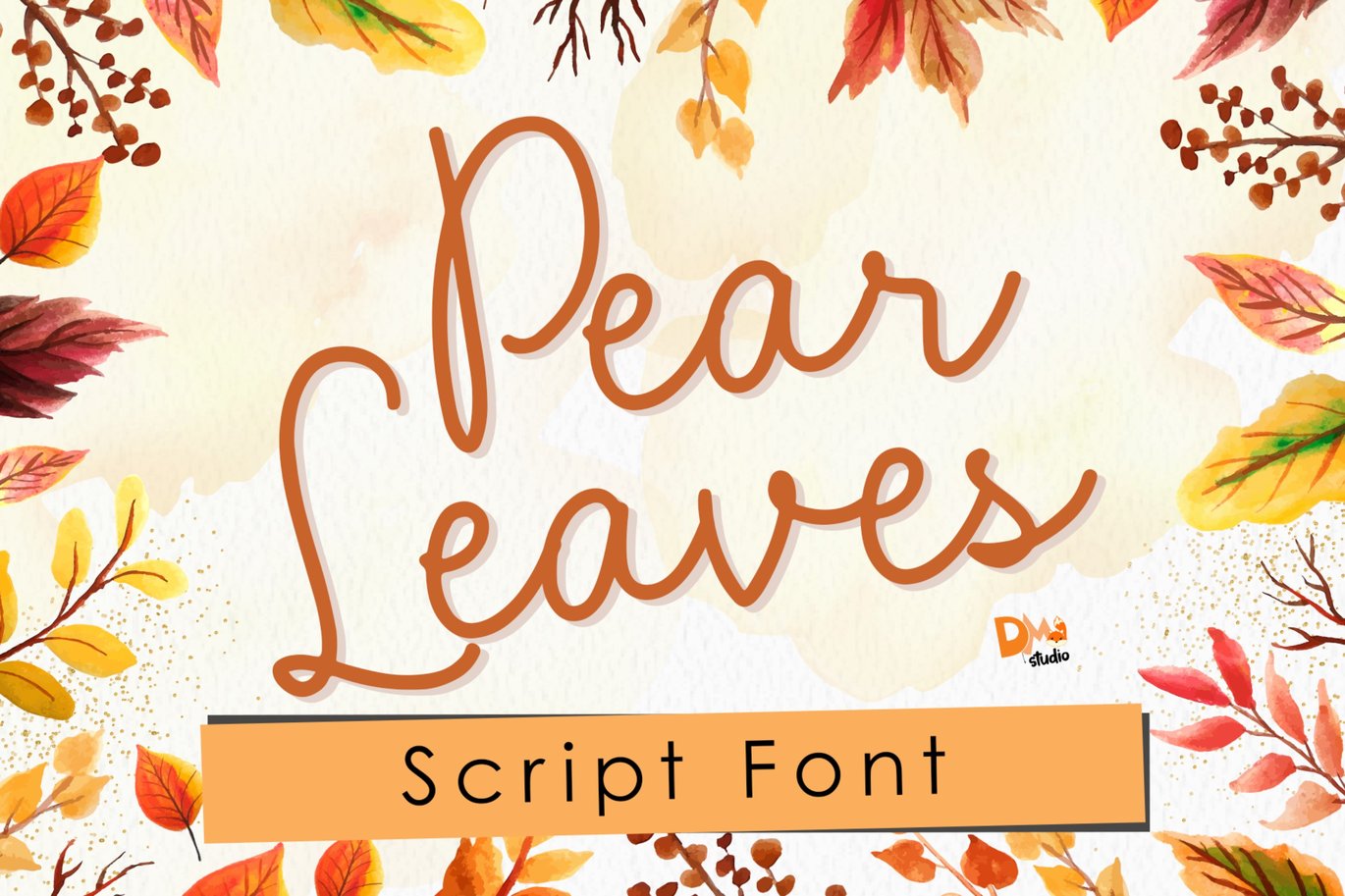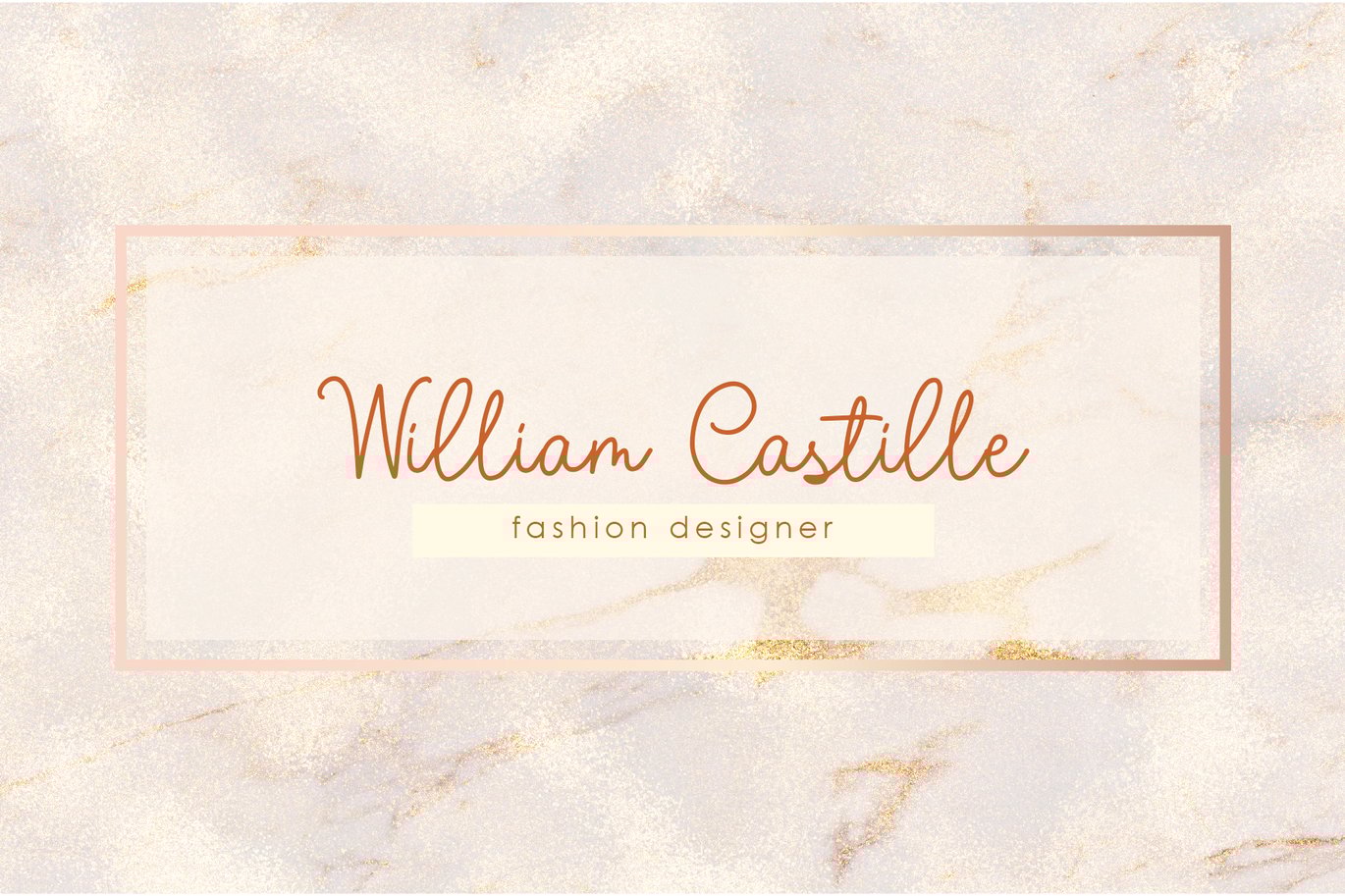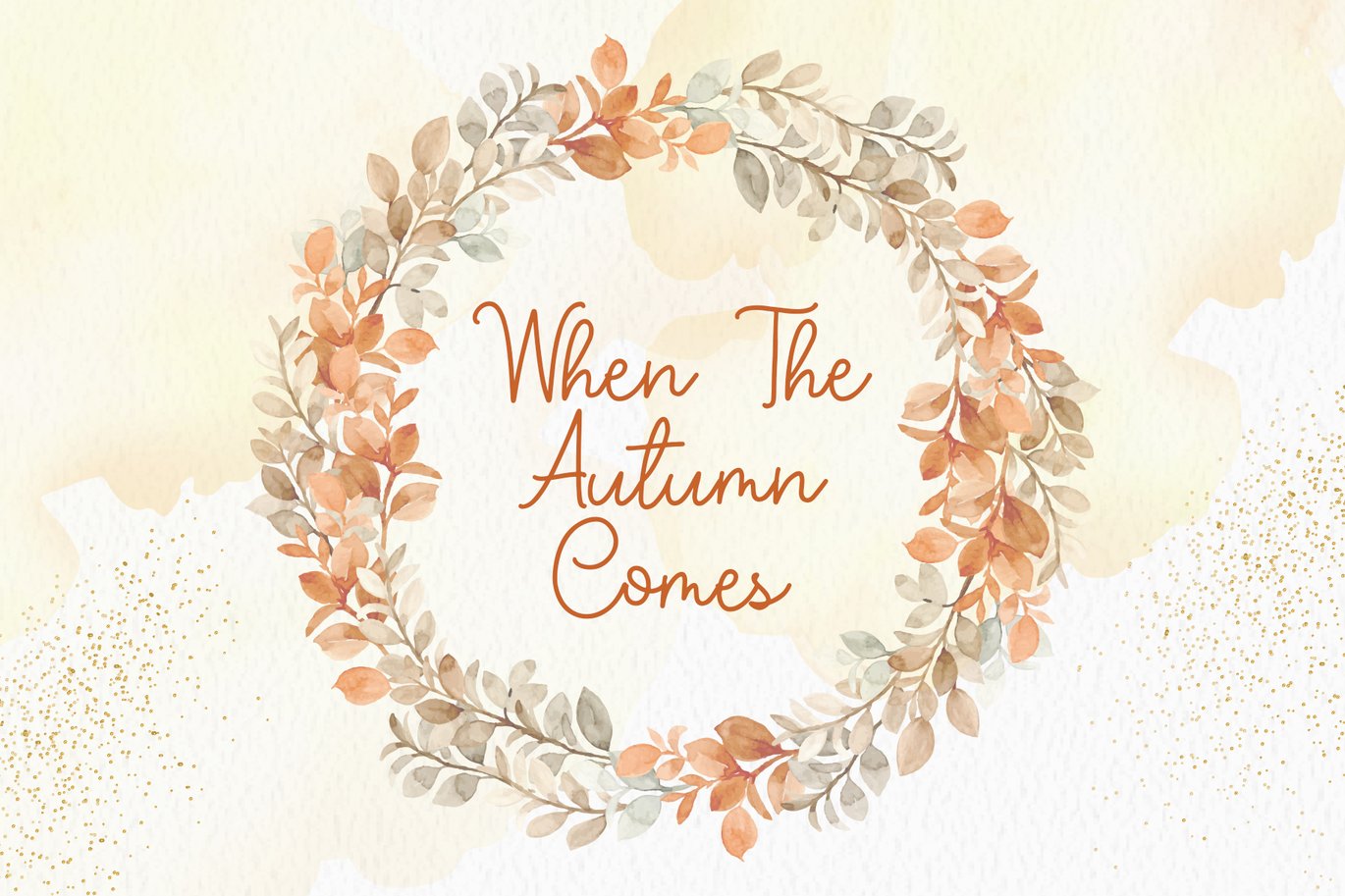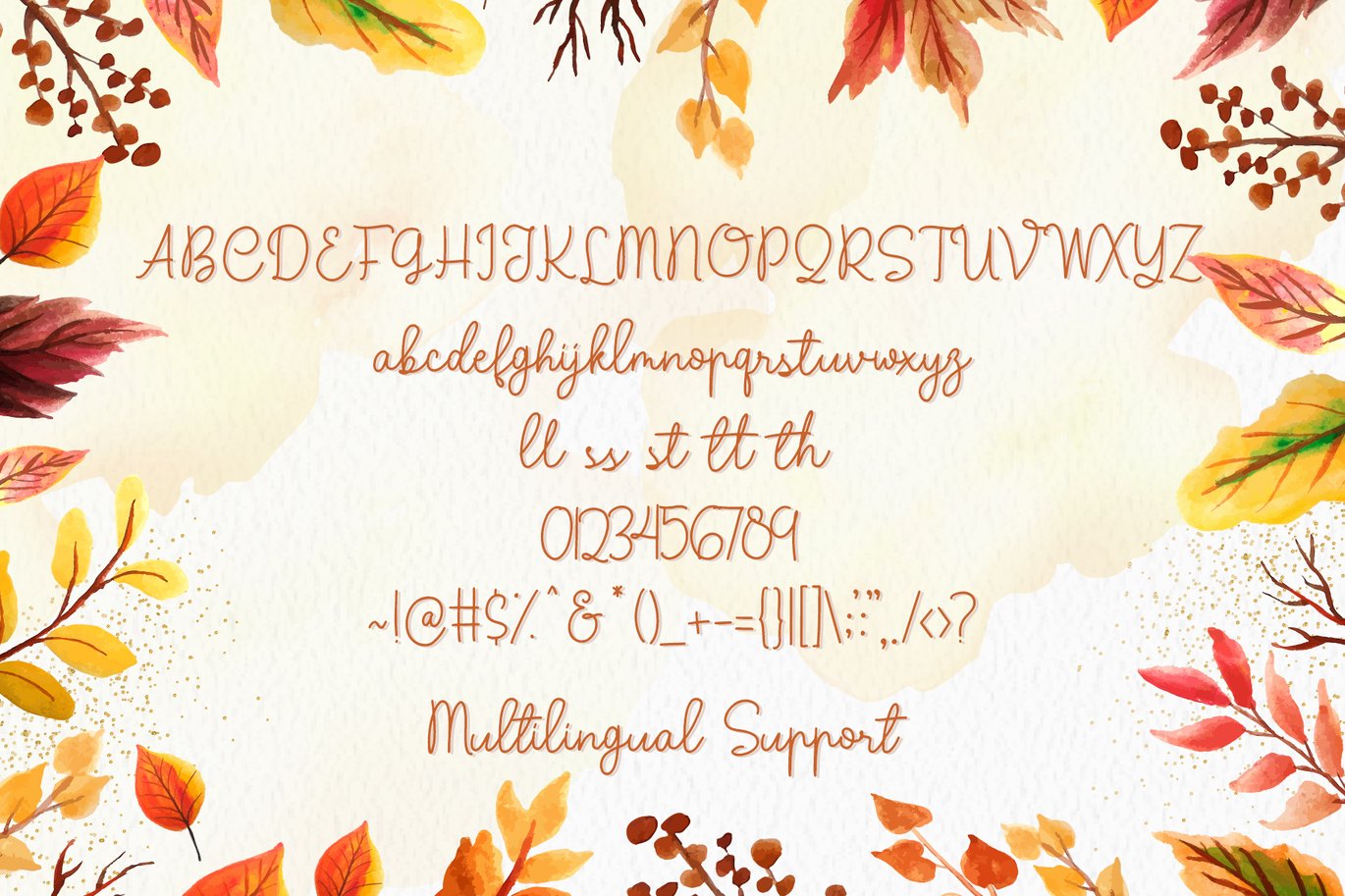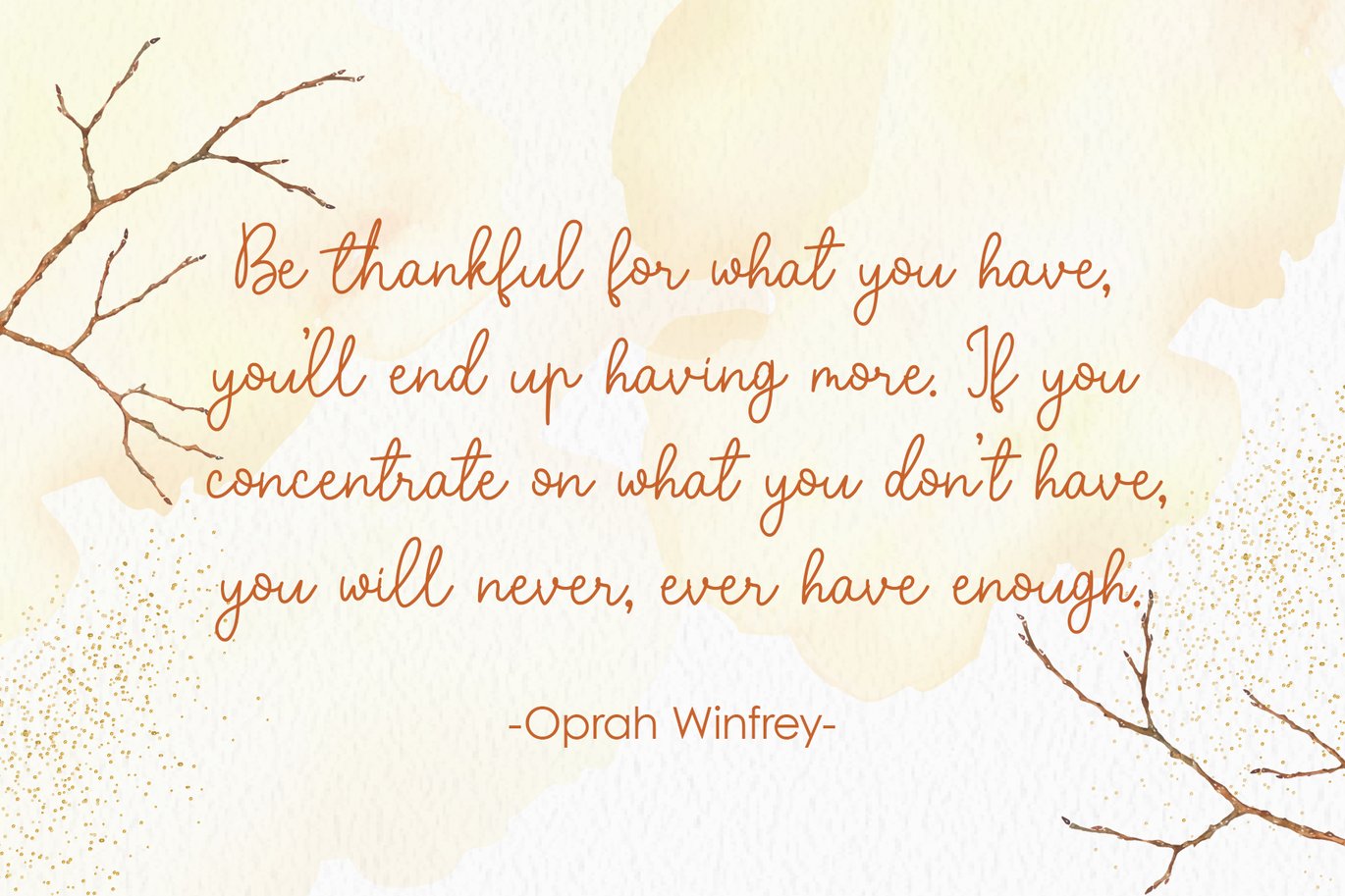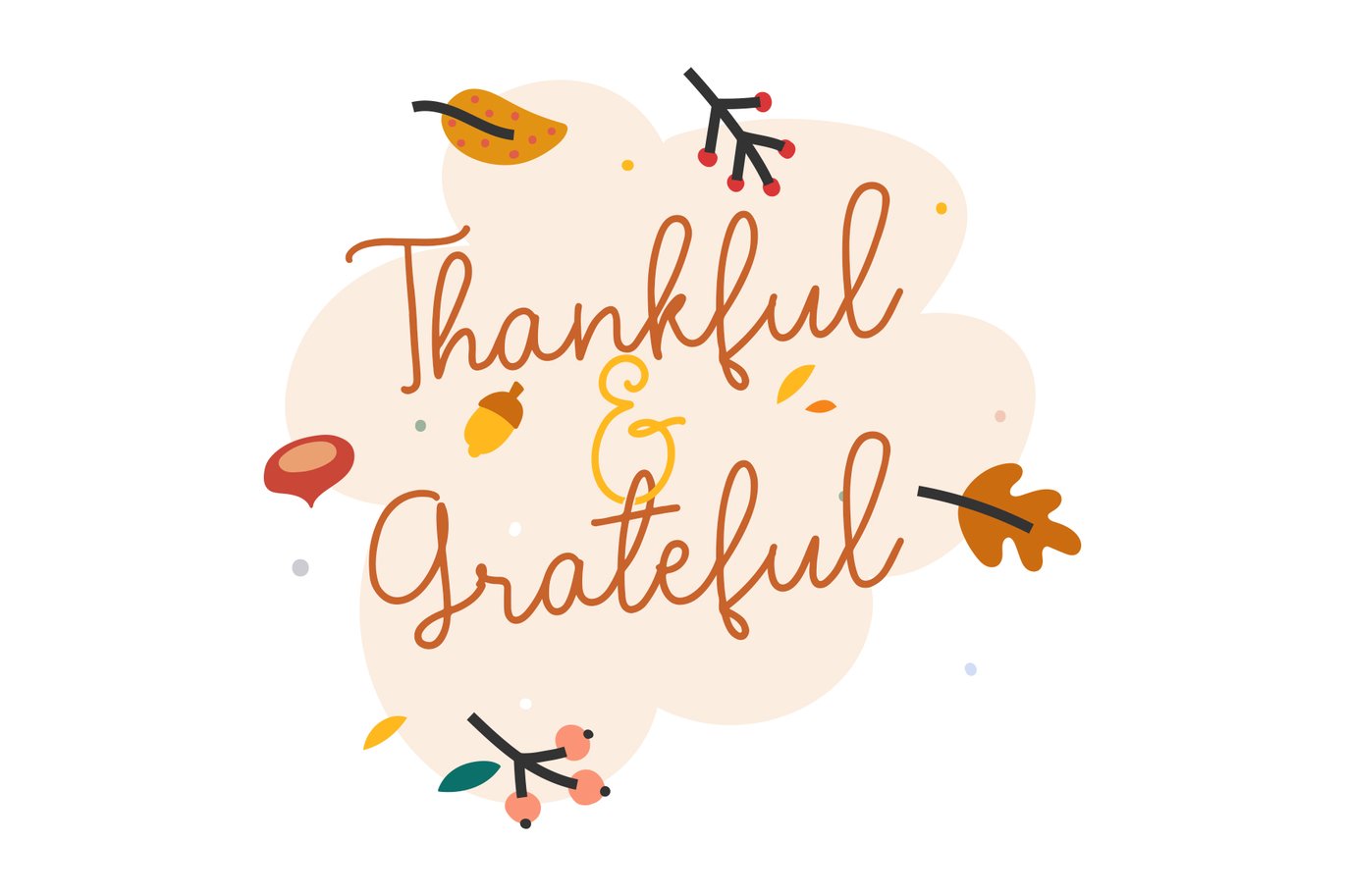
Pear Leaves – Autumn Script Font
Pear Leaves
Get the beautyness of this lovely handwritten script font. Inspired by classic script typeface, it’s versatile and warm for any design.
- Numeric
- Symbols & Punctuations